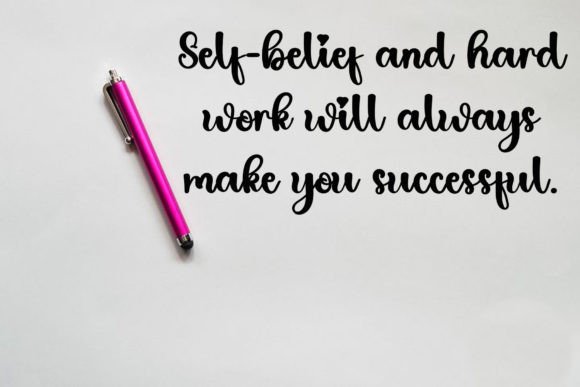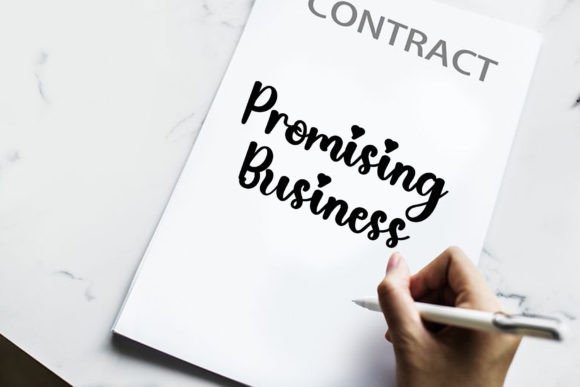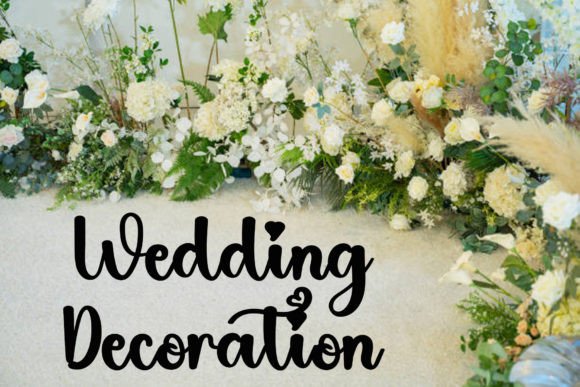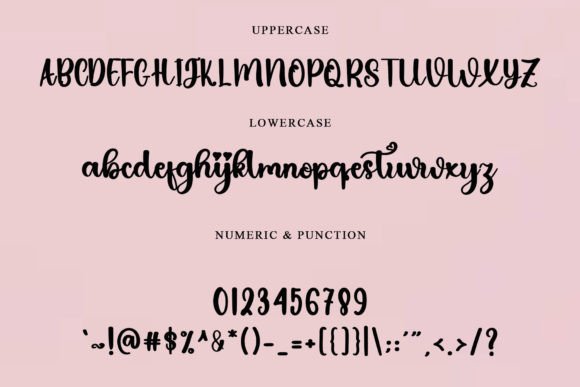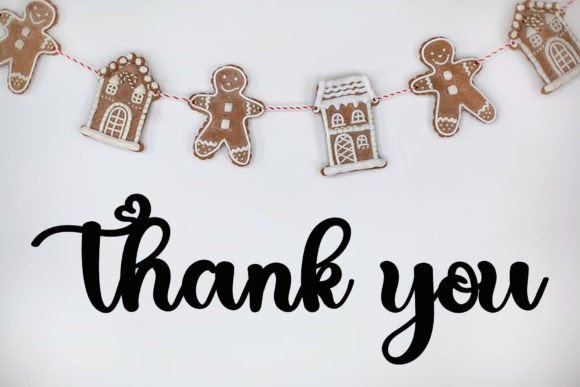
Discover the Charm of Beauty Babies Font: Elevate Your Designs with Elegance
In the world of typography, a beautiful font can make all the difference in transforming a design from ordinary to extraordinary. For designers, crafters, and anyone looking to add a touch of elegance to their projects, the Beauty Babies Font is a gem worth exploring. This stunning handwritten font is characterized by its neat, beautiful, and elegant touch, making it perfect for a wide range of applications. In this article, we’ll dive into the unique features of the Beauty Babies Font and how it can be used to create spectacular designs that stand out.
The Unique Appeal of Beauty Babies Font
Beauty Babies Font is described as a neat and beautiful handwritten font with an elegant touch. Its distinct style is incredibly timeless, offering a versatility that allows it to be used across various design projects. Whether you’re working on a branding project, crafting beautiful invitations, designing engaging social media graphics, or creating stunning website content, this font is sure to impress.
One of the standout features of the Beauty Babies Font is its incredibly distinct style. The font’s elegant and flowing script gives it a unique charm that can add a personal touch to any design. Its readability and aesthetic appeal make it an excellent choice for both digital and print projects. The font’s ability to convey a sense of sophistication and elegance makes it particularly suitable for projects that require a high level of professionalism.
Why Fall in Love with Beauty Babies Font?
There are many reasons why designers and crafters will fall in love with the Beauty Babies Font. Here are a few:
- Timeless Elegance: The font’s classic and elegant style ensures that your designs will remain timeless and relevant for years to come.
- Versatility: Its neat and beautiful appearance makes it suitable for a wide range of projects, from personal crafts to professional branding.
- Distinctiveness: The unique touch of the Beauty Babies Font sets it apart from more common fonts, ensuring your designs stand out.
- Ease of Use: Despite its elegant appearance, the font is easy to read and work with, making it accessible for designers of all skill levels.
How to Use Beauty Babies Font in Your Projects
Integrating the Beauty Babies Font into your design projects is straightforward. Here are some ideas to get you started:
- Branding and Logotypes: Use the Beauty Babies Font to create elegant and memorable logos or brand names that convey sophistication.
- Invitations and Stationery: Add a personal and elegant touch to your invitations, greeting cards, and other stationery items.
- Social Media Graphics: Elevate your social media presence with beautifully designed graphics that utilize the Beauty Babies Font.
- Web Design: Incorporate the font into your website design to provide a cohesive and elegant user experience.
- Crafting and DIY Projects: Whether you’re creating handmade cards, fabric designs, or other craft projects, the Beauty Babies Font can add a unique and professional touch.
Tips for Maximizing the Impact of Beauty Babies Font
To make the most out of the Beauty Babies Font, consider the following tips:
- Pair with Complementary Fonts: When using the Beauty Babies Font alongside other fonts, choose ones that complement its elegant style without competing with it.
- Pay Attention to Size and Spacing: Ensure that the font size and spacing are optimized for readability, especially in digital and print materials.
- Experiment with Colors: While the font itself is elegant, the right color choice can further enhance its appearance. Consider soft pastels, neutral tones, or rich jewel tones to match your project’s theme.
- Use it Sparingly: While the Beauty Babies Font is beautiful, using it sparingly can make it more impactful. Consider using it for headings or key messages.
The Beauty Babies Font is a versatile and elegant addition to any designer’s toolkit. Its timeless style, distinctiveness, and ease of use make it an excellent choice for a wide range of projects. Whether you’re a professional designer or a crafting enthusiast, this beautiful handwritten font has the potential to elevate your designs and add that special touch of elegance. So, fall in love with its charm and make it a part of your creative journey. With the Beauty Babies Font, you’re not just choosing a typeface; you’re embracing a design element that can transform your projects and leave a lasting impression on your audience.